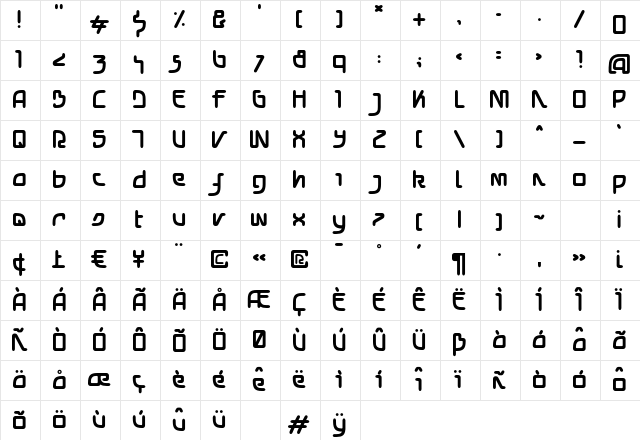
Complete NeoTokio One glyph index. Displaying only characters natively supported by NeoTokio One font.
NeoTokio is a composed and adaptable typeface that performs quietly and consistently across a wide range of design contexts.